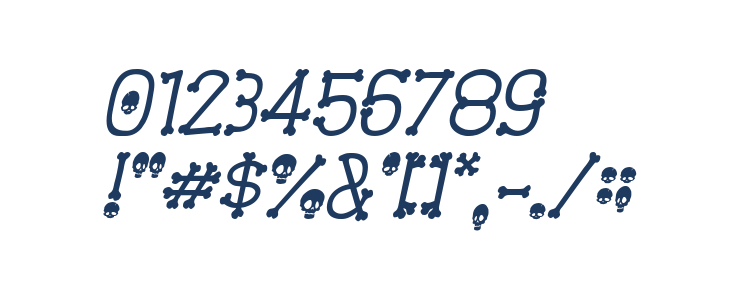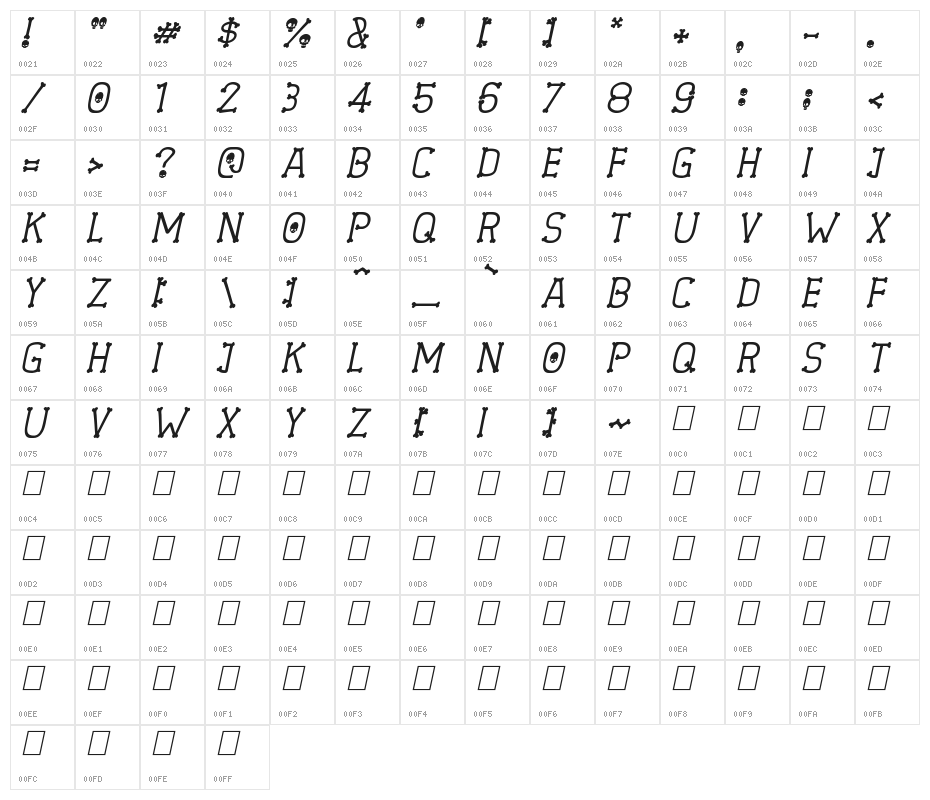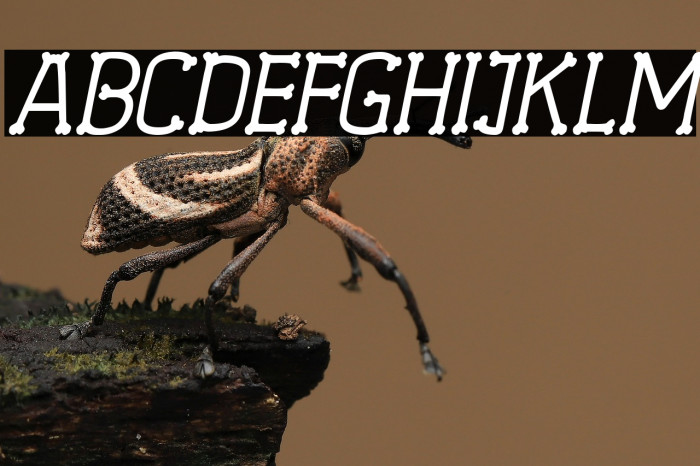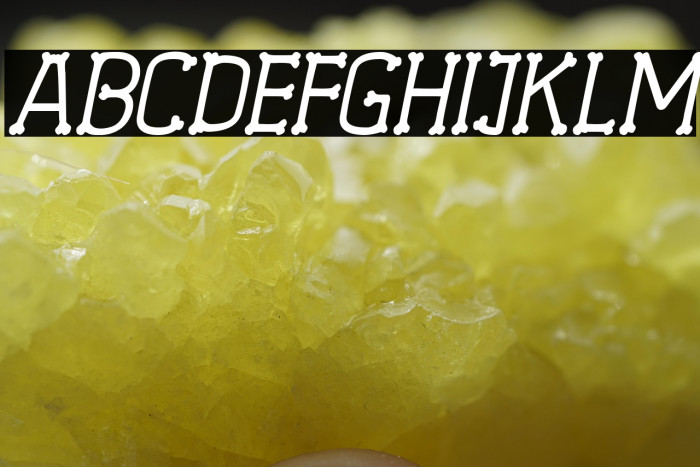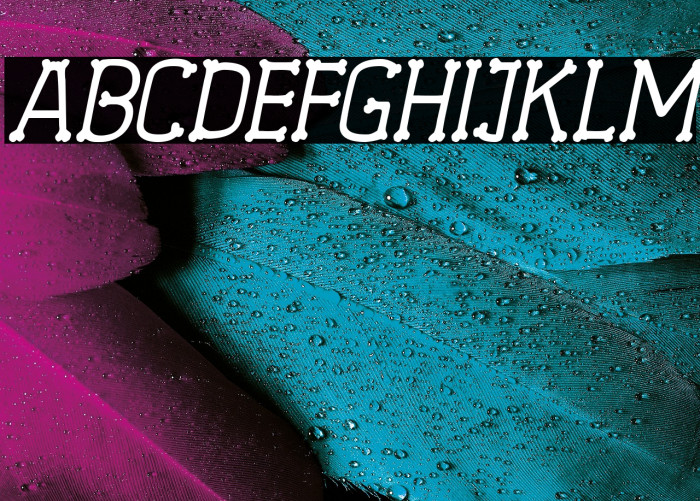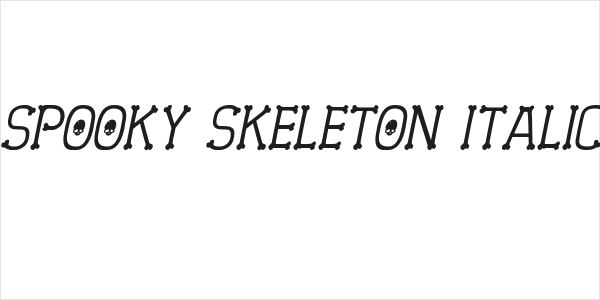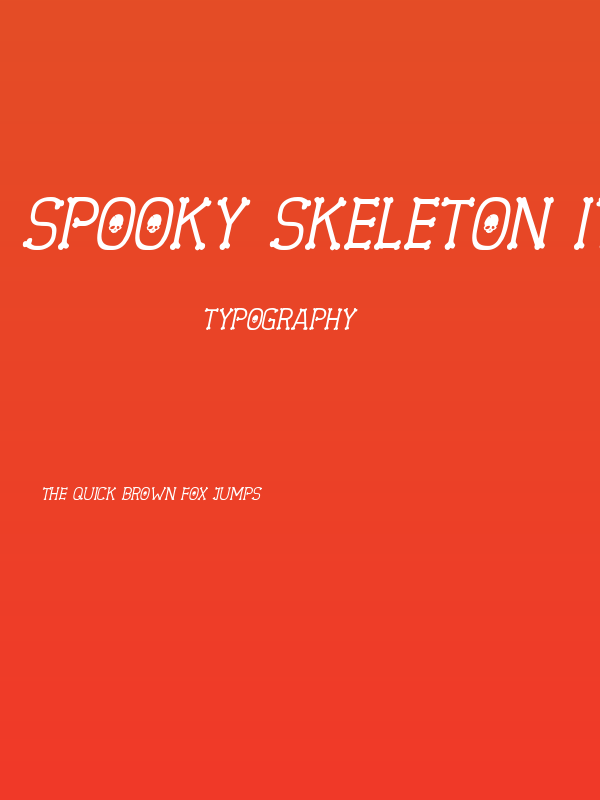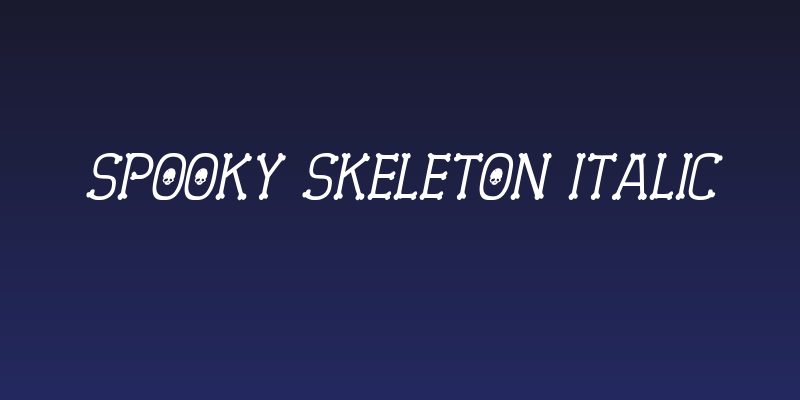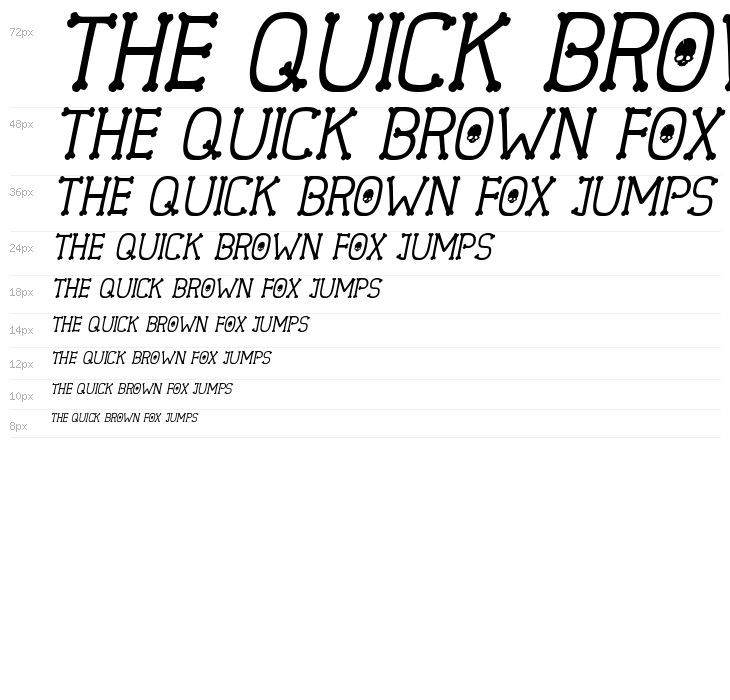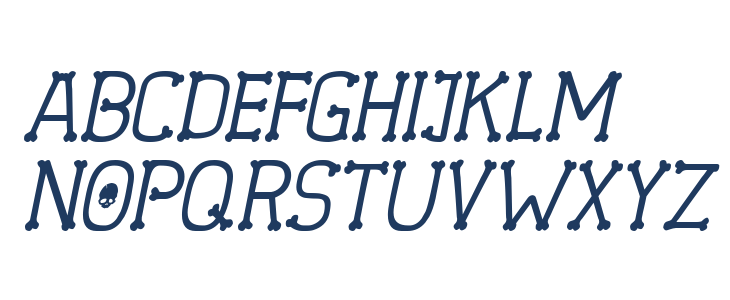
Spooky Skeleton Italic Font
Spooky Skeleton Italic Description
This font features a playful and spooky design, with each character incorporating skeletal elements that give it a Halloween-inspired look. The letters are italicized, adding a dynamic and slightly whimsical feel. The strokes are consistent in thickness, creating a uniform appearance across all characters. The inclusion of skull motifs within certain letters and numbers enhances its thematic appeal, making it ideal for seasonal or themed projects. The font maintains legibility while offering a unique decorative style that stands out.
| Use Case | Headlines, Logos, Decorative text |
| Proposed Projects | Ideal for Halloween-themed designs, party invitations, posters, and decorative signage. |